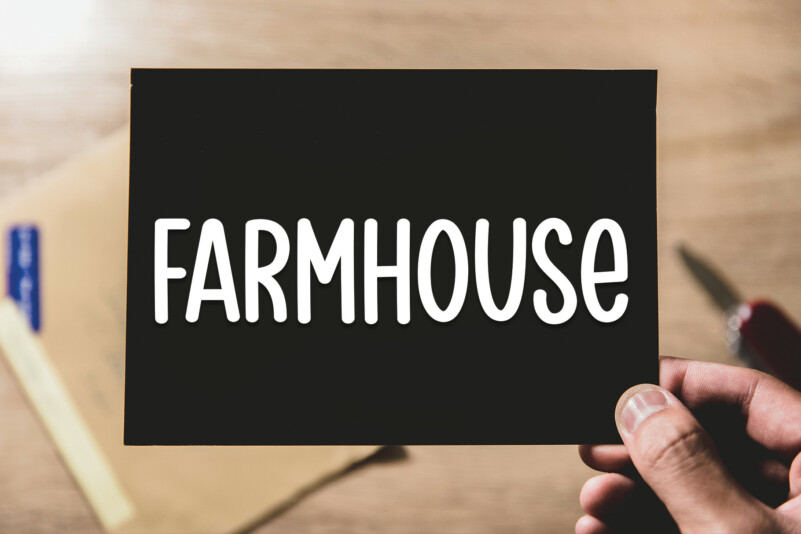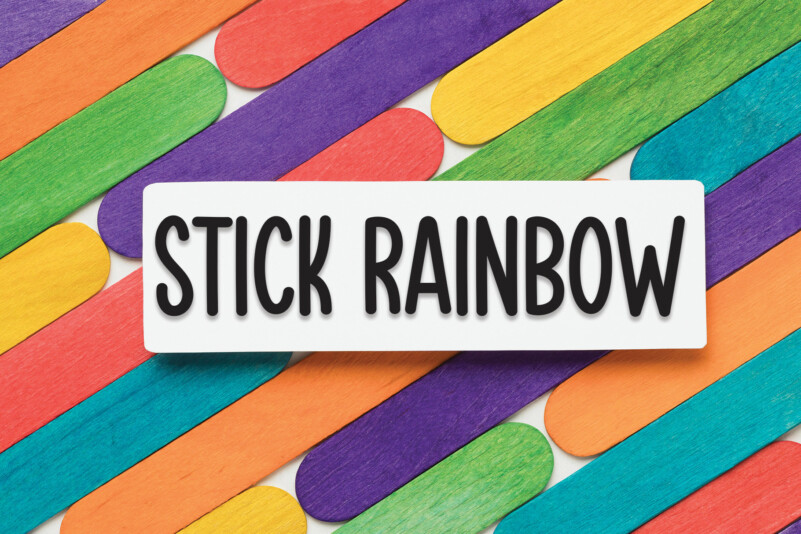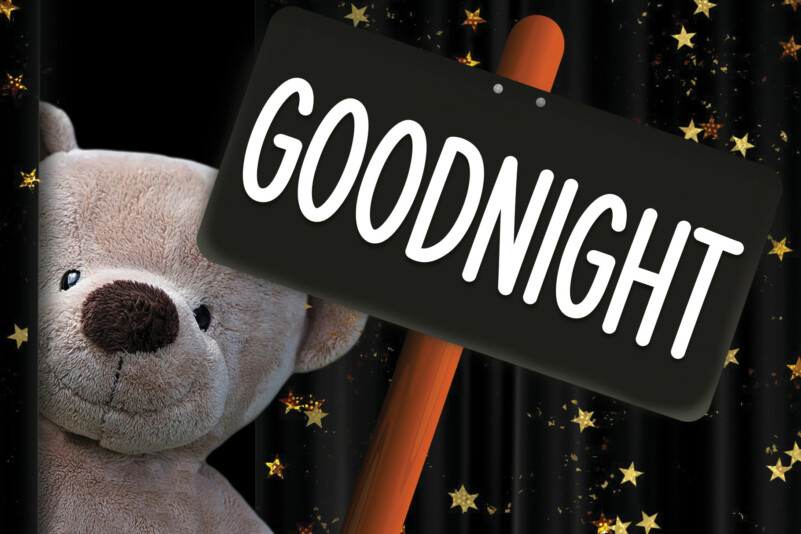
Simple Story Display Typeface
Simple Story Display Typeface is a casual and neat handwritten font. With a sleek and professional appearance, this font will be suitable for a wide spectrum of applications.